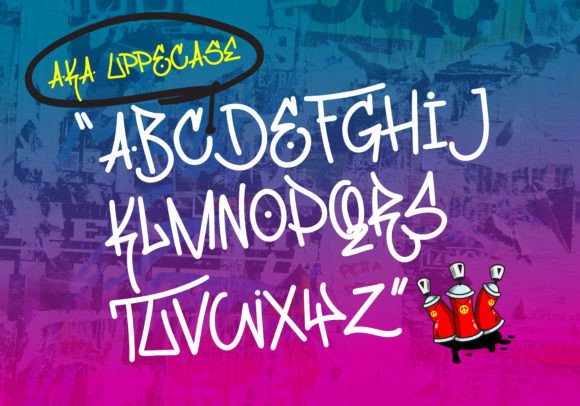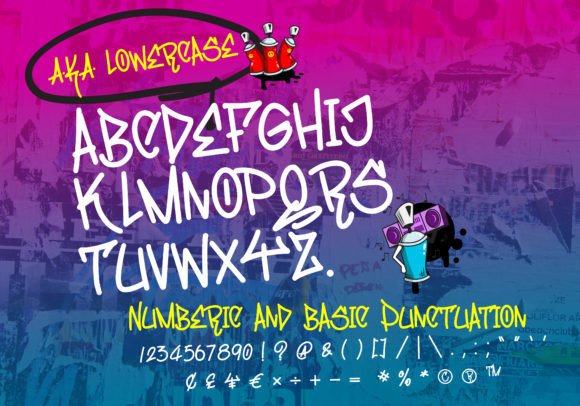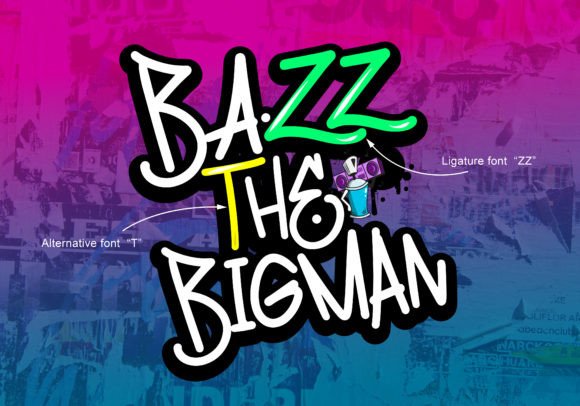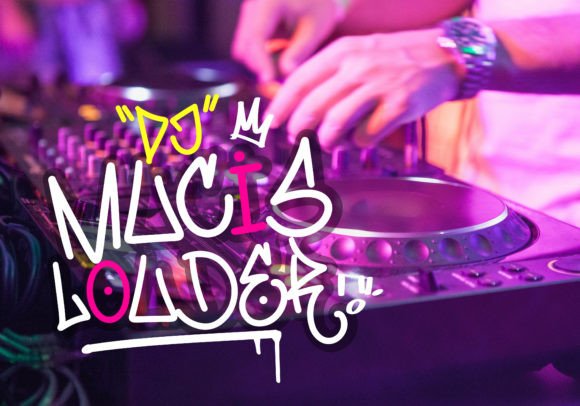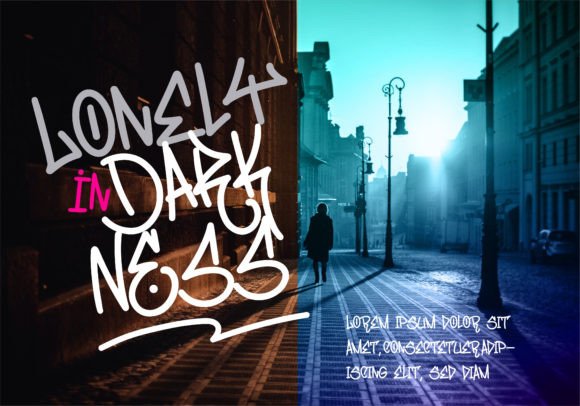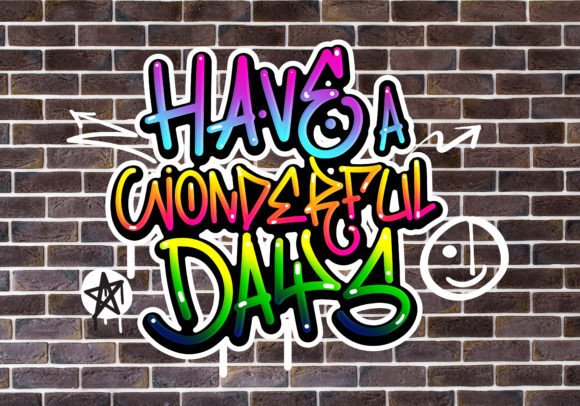
Aka Font: The Ultimate Graffiti-Styled Display Font for Designers and Crafters
Are you a designer or crafter looking for a font that can add a cool street art vibe to your designs? Look no further than Aka Font! This awesome graffiti-styled display font is perfect for creating eye-catching designs that stand out from the crowd. In this article, we’ll take a closer look at Aka Font, its features, and how you can use it to take your designs to the next level.
What is Aka Font?
AKA Font is a graffiti-styled display font that is designed to give your designs a cool, street art-inspired look. With its bold and edgy letterforms, Aka Font is perfect for creating designs that require a bit of attitude and personality. Whether you’re designing a logo, advertisement, or t-shirt, Aka Font is sure to make your design stand out.
Key Features of Aka Font
So, what makes Aka Font so special? Here are some of its key features:
- Graffiti-styled letterforms: Aka Font features bold, edgy letterforms that are inspired by graffiti art.
- Cool street art vibe: This font has a cool, laid-back vibe that’s perfect for designs that require a bit of attitude.
- Highly legible: Despite its bold and edgy design, Aka Font is highly legible, making it perfect for use in a variety of designs.
- Versatile: Aka Font can be used in a wide range of designs, from t-shirts and sportswear to logos and advertisements.
How to Use Aka Font in Your Designs
So, how can you use Aka Font in your designs? Here are a few ideas to get you started:
T-Shirts and Apparel
Aka Font is perfect for designing t-shirts, hoodies, and other apparel. Its bold and edgy letterforms make it perfect for creating eye-catching designs that stand out from the crowd.
Logos and Branding
If you’re looking for a font to use in your logo or branding, Aka Font is a great choice. Its cool street art vibe makes it perfect for brands that want to appear edgy and trendy.
Advertisements and Posters
Aka Font is also perfect for use in advertisements and posters. Its bold and eye-catching letterforms make it perfect for grabbing attention and standing out from the crowd.
Sportswear and Accessories
If you’re designing sportswear or accessories, Aka Font is a great choice. Its bold and edgy letterforms make it perfect for creating designs that are both functional and fashionable.
Tips for Using Aka Font
Here are a few tips for using Aka Font in your designs:
- Use it sparingly: Aka Font is a bold and eye-catching font, so use it sparingly to avoid overwhelming your design.
- Experiment with colors: Aka Font looks great in a variety of colors, so don’t be afraid to experiment and find the perfect color for your design.
- Pair it with other fonts: Aka Font can be paired with other fonts to create a unique and interesting design.
In conclusion, Aka Font is an awesome graffiti-styled display font that’s perfect for designers and crafters who want to add a cool street art vibe to their designs. With its bold and edgy letterforms, Aka Font is perfect for creating eye-catching designs that stand out from the crowd. Whether you’re designing t-shirts, logos, advertisements, or sportswear, Aka Font is a great choice. So why not give it a try and see what amazing designs you can create?